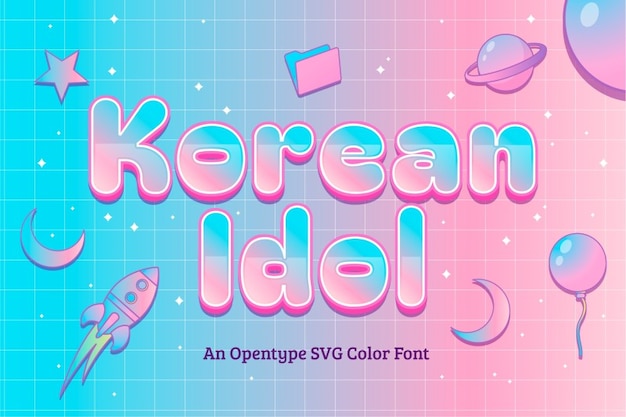
Korean Idol Font
Korean Idol Font embodies a bold and rounded style inspired by Asian aesthetics. Its charismatic design reflects the vibrancy of Korean pop culture, offering a youthful yet confident appeal. Perfect for designs seeking an energetic, rounded font that captures the essence of Asian charisma and modernity.